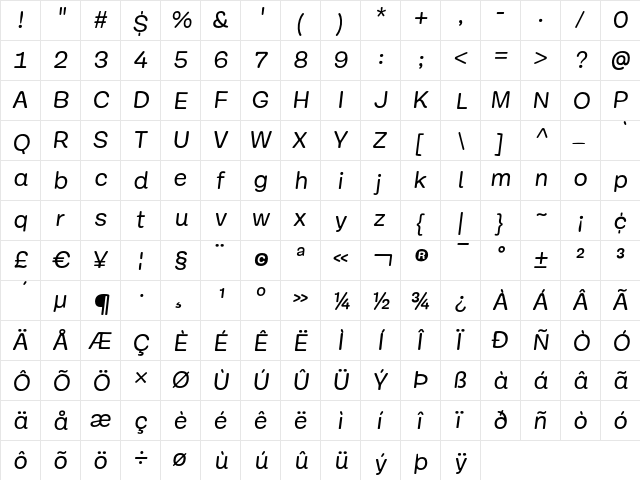
Mija Italic
| Foundry | Miguel HernǮdez |
| Designer | The Latinotype Foundry |
Design Context for Mija Typeface
Mija offers clean, dependable letterforms without strong stylistic allegiance, making it a practical choice for designers who need flexibility. The slanted form adds forward momentum and visual energy.
Pro Tip: Use Mija for emphasis, pull quotes, and subheadings where its slanted energy can add rhythm to the layout.